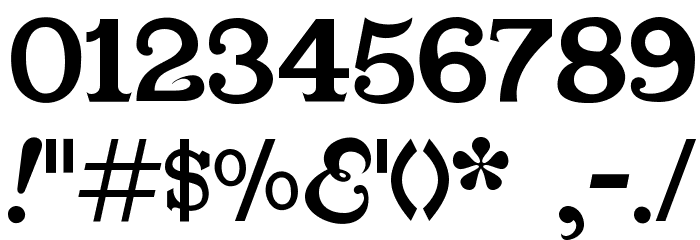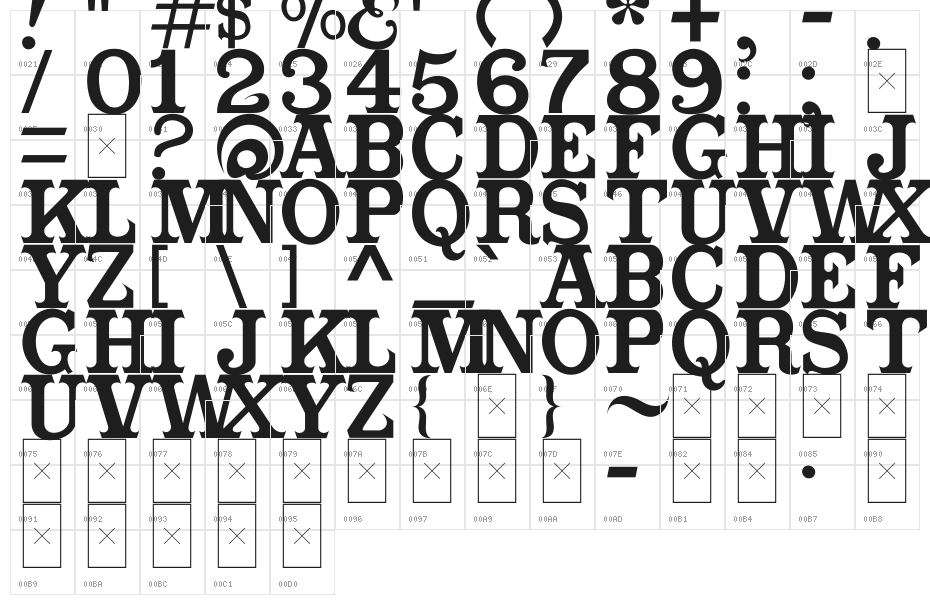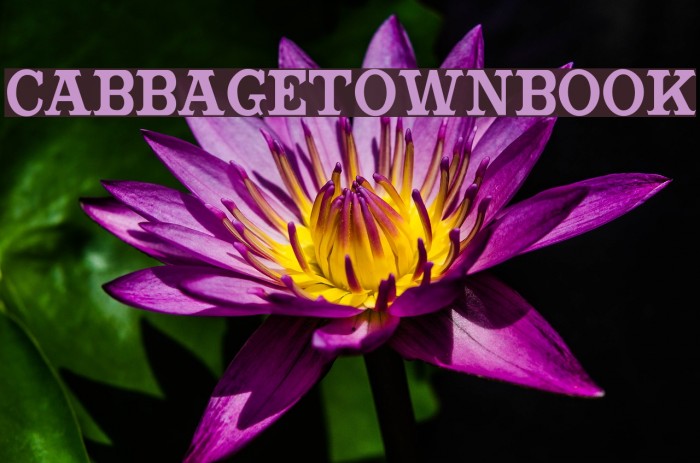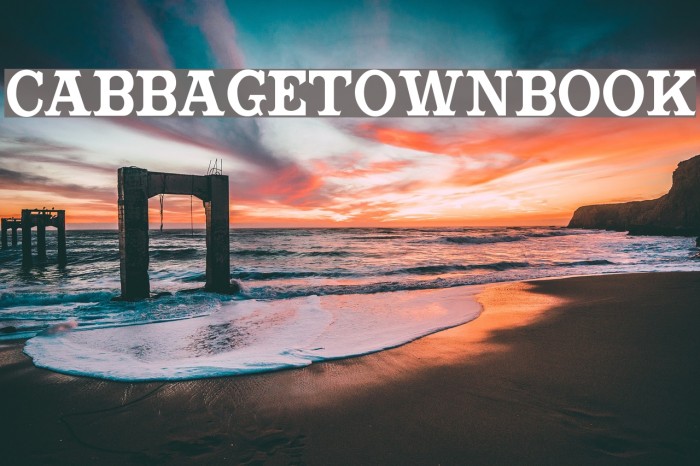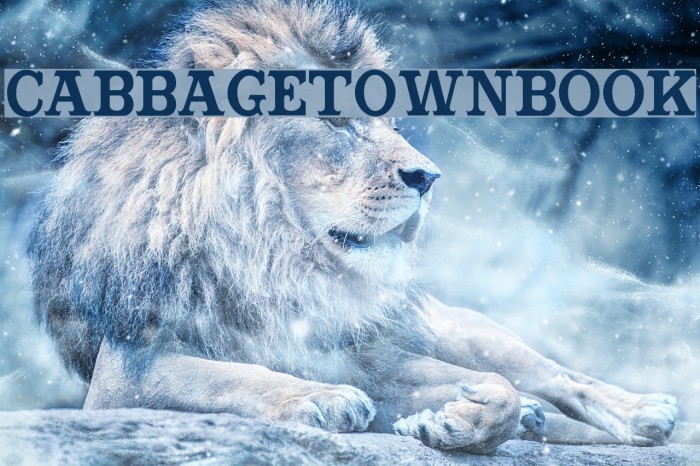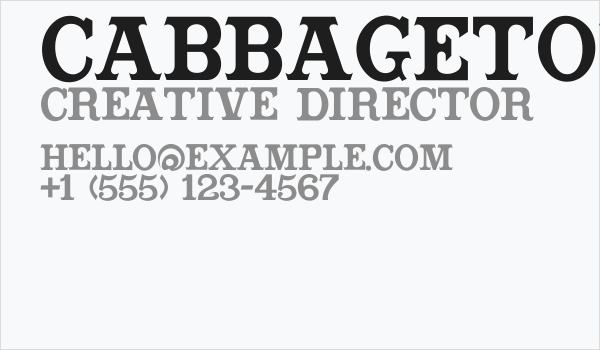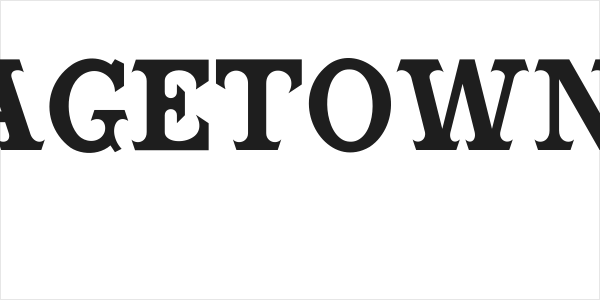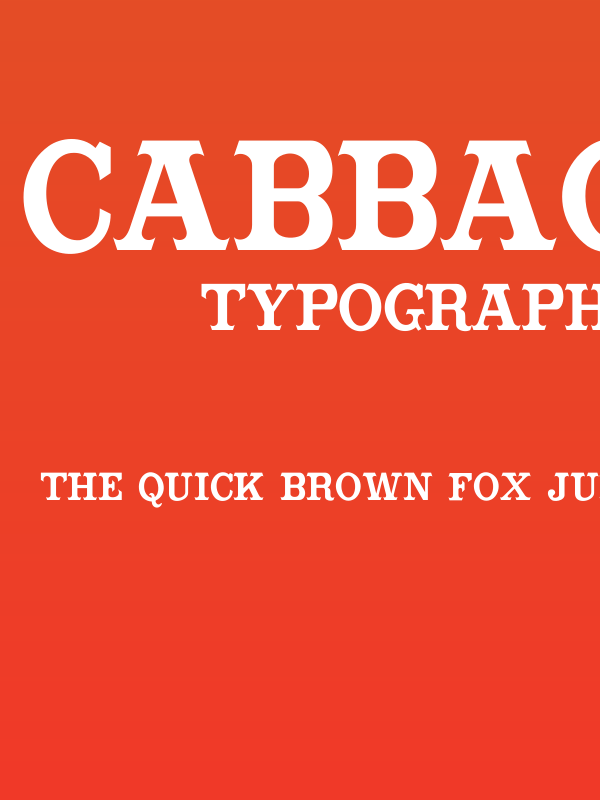
CabbagetownBook Font
CabbagetownBook Description
This font features a bold and striking serif design, characterized by thick strokes and prominent serifs that give it a strong and authoritative presence. The uppercase letters are robust and commanding, with a consistent weight that ensures readability and impact. The lowercase letters maintain the same boldness, providing a cohesive look across different text sizes. The numerals are equally bold, with a slight curvature that adds a touch of elegance to the overall design. Special characters are well-defined, maintaining the font's bold aesthetic while ensuring clarity and legibility. This font's high contrast between thick and thin strokes enhances its visual appeal, making it suitable for attention-grabbing headlines and titles.
| Proposed Projects | Ideal for use in headlines, posters, book covers, and branding projects where a strong, impactful presence is desired. |